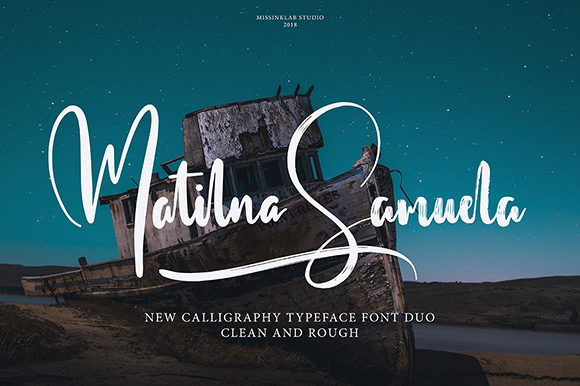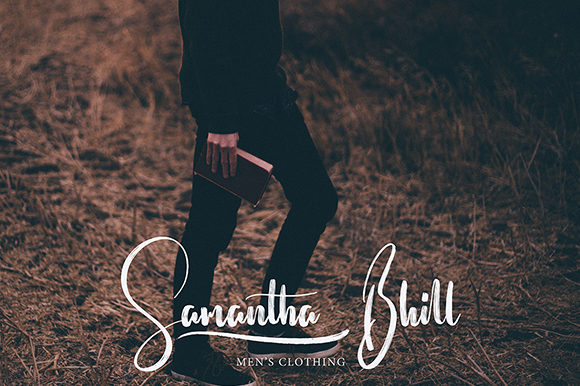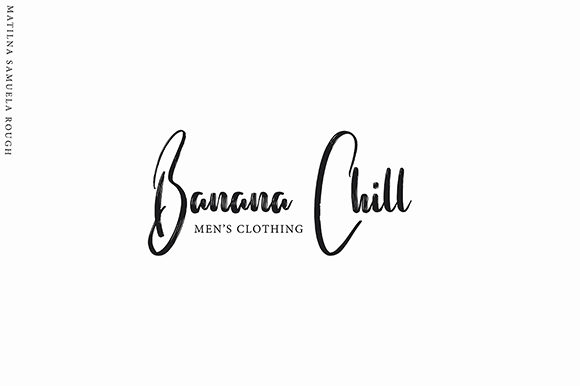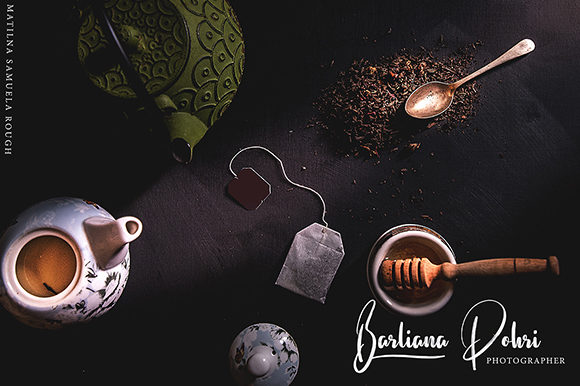
Matilna Samuela Font
About Matilna Samuela Font
Matilna Samuela is a modern and lovely handwritten font with incredible elements. Get inspired by its authentic touch.